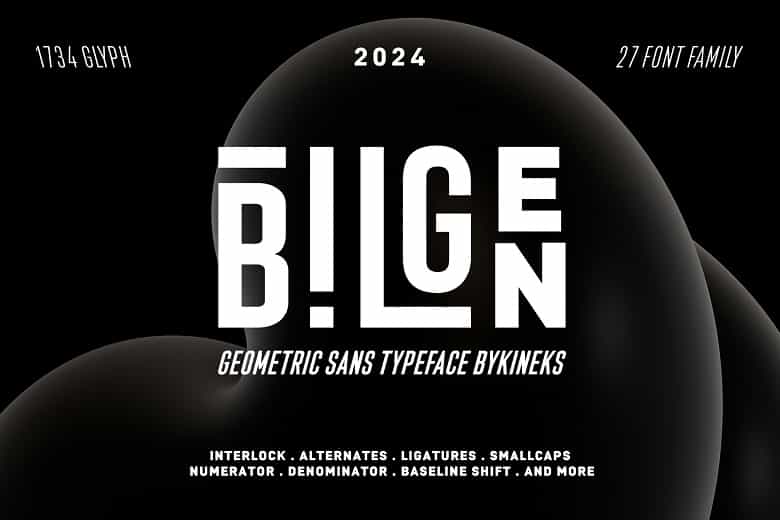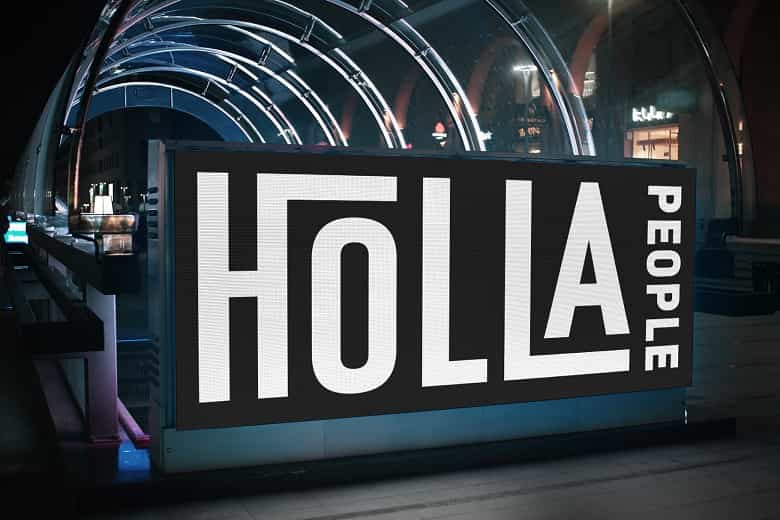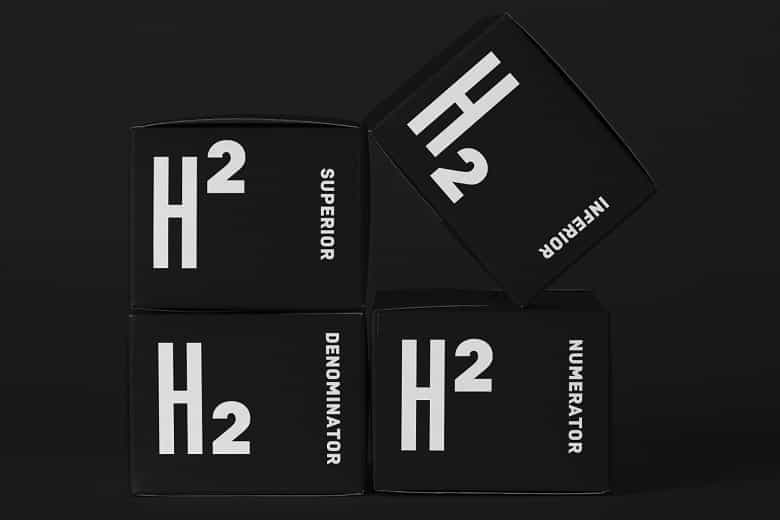
Bilgen is a clean and simple sans serif fonts family which can be perfect added into your designs to make it look neat. This font has 27 font families and it comes in different weights from thin to black, thus it is suitable for any work. It has interlock, alternates, ligatures, small caps, numerator, denominator, and baseline shift features that allow you to be as creative as you want to be.